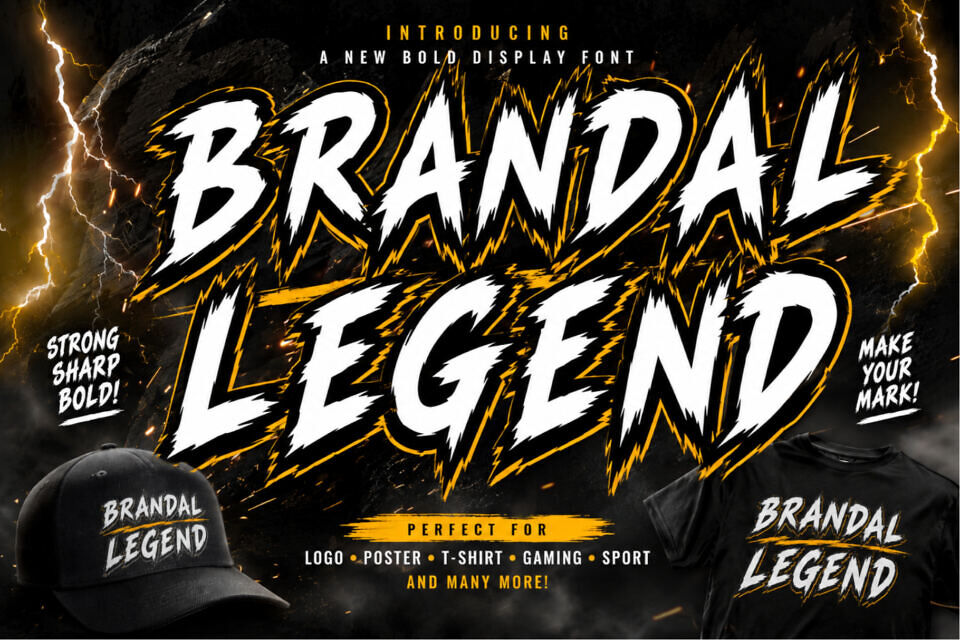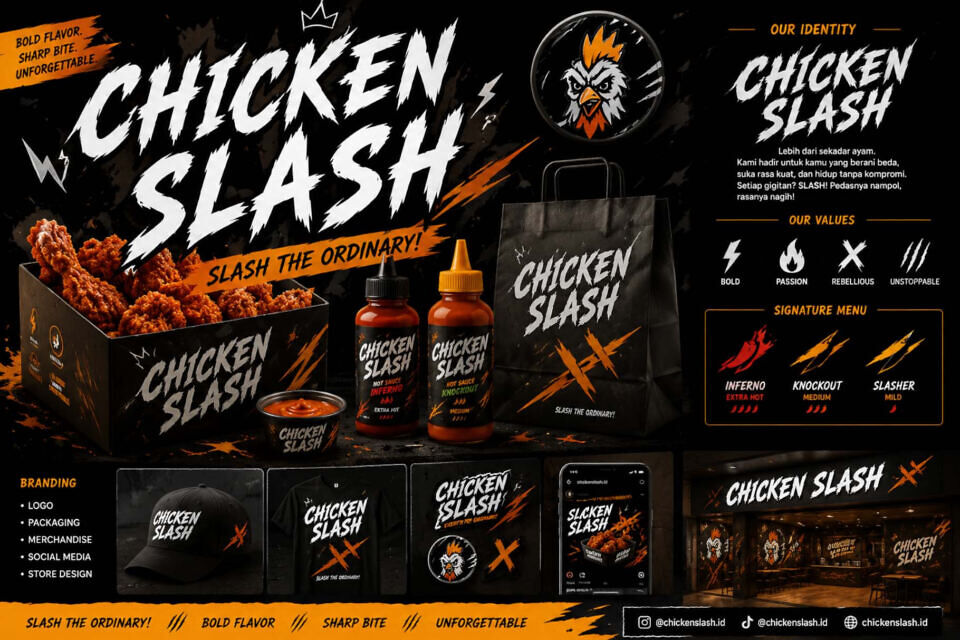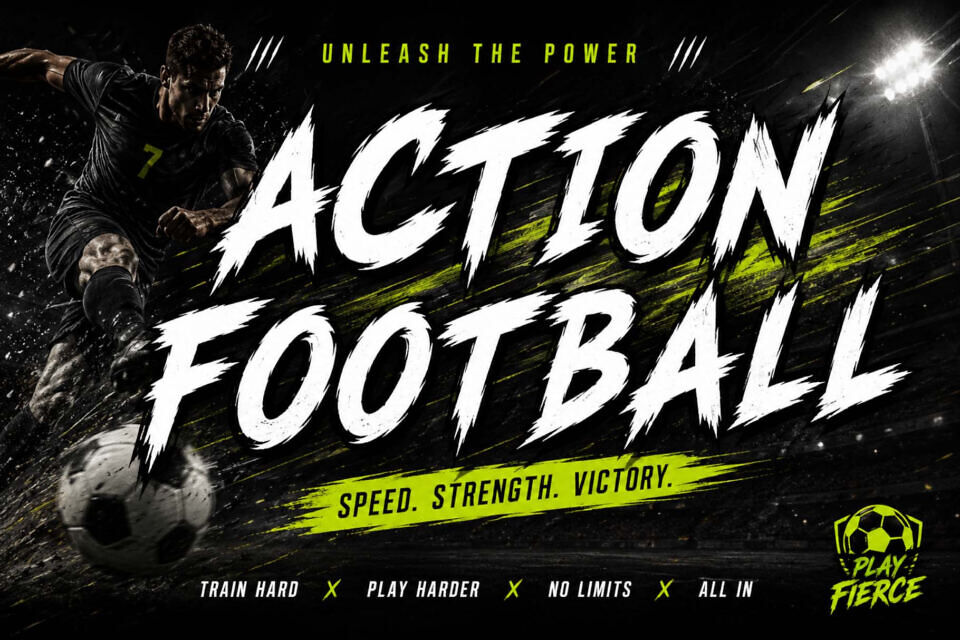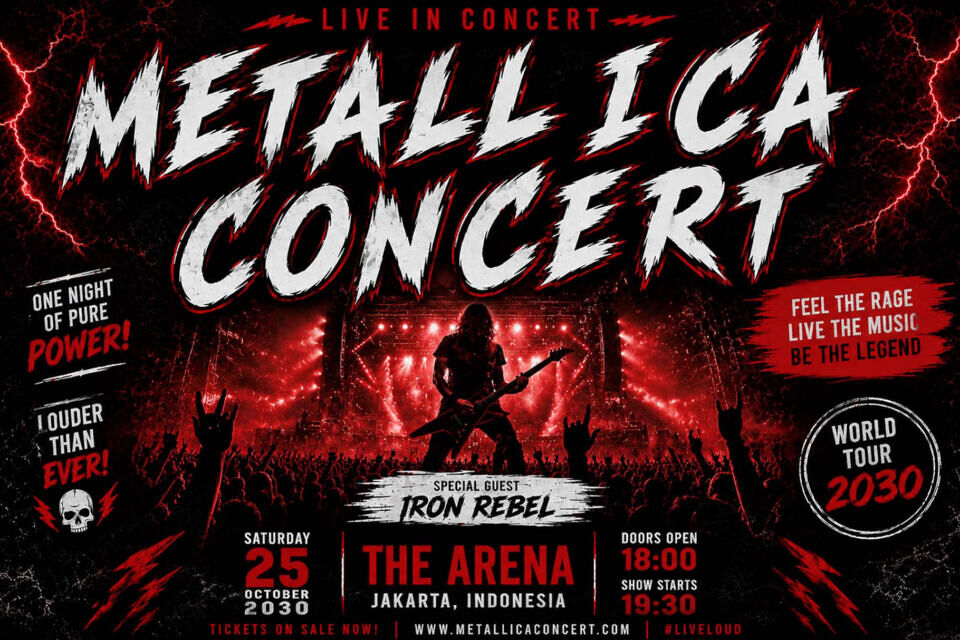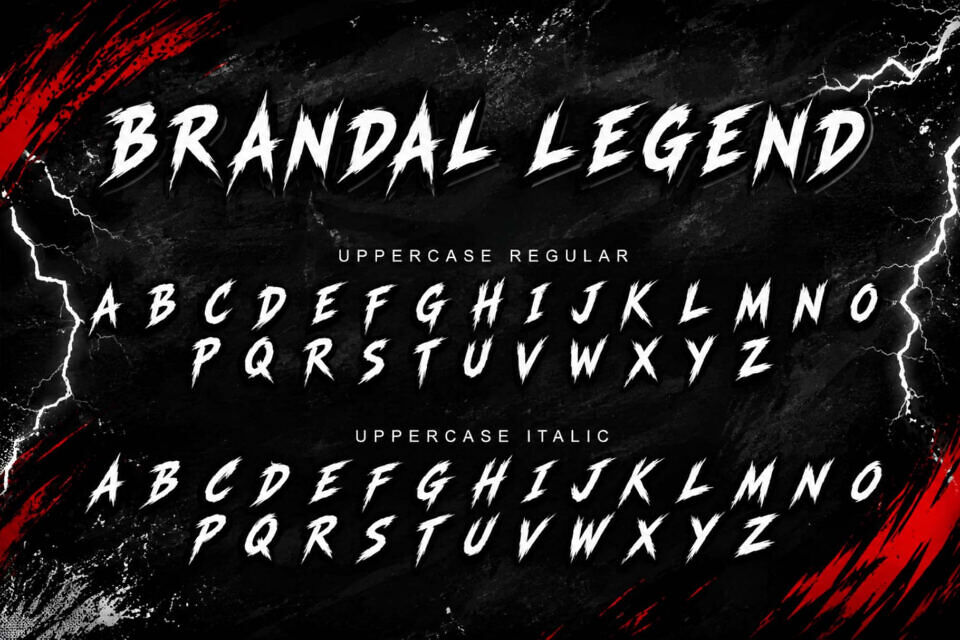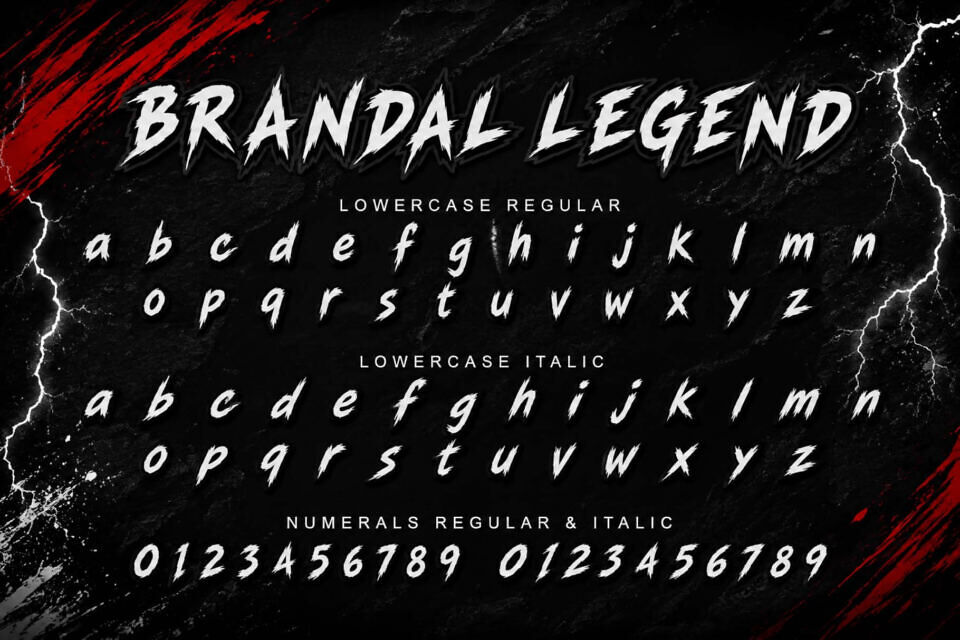
Brandal Legend Font
Brandal Legend is a bold brush-style display font with sharp, jagged strokes and a fierce, energetic character. Inspired by street art, action themes, and extreme sports aesthetics, it delivers a strong visual impact that instantly grabs attention.
Its aggressive and dynamic letterforms make it perfect for logos, gaming titles, esports branding, posters, merchandise, album covers, and other designs that require a powerful and rebellious look. The font is available in both regular and italic uppercase styles, adding versatility and motion to your creative projects.